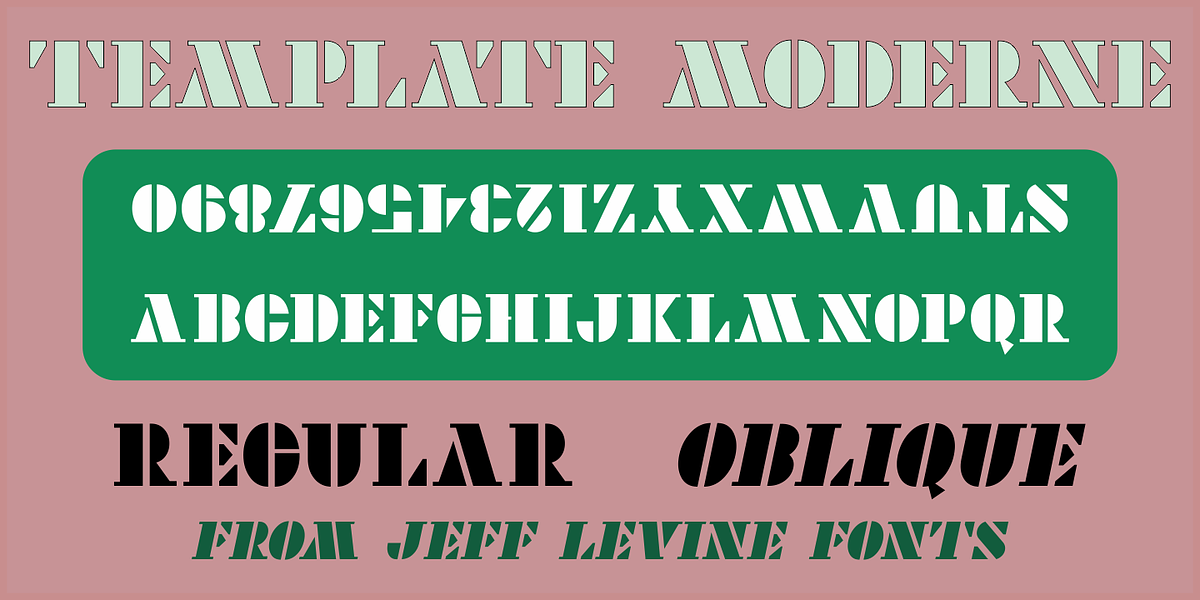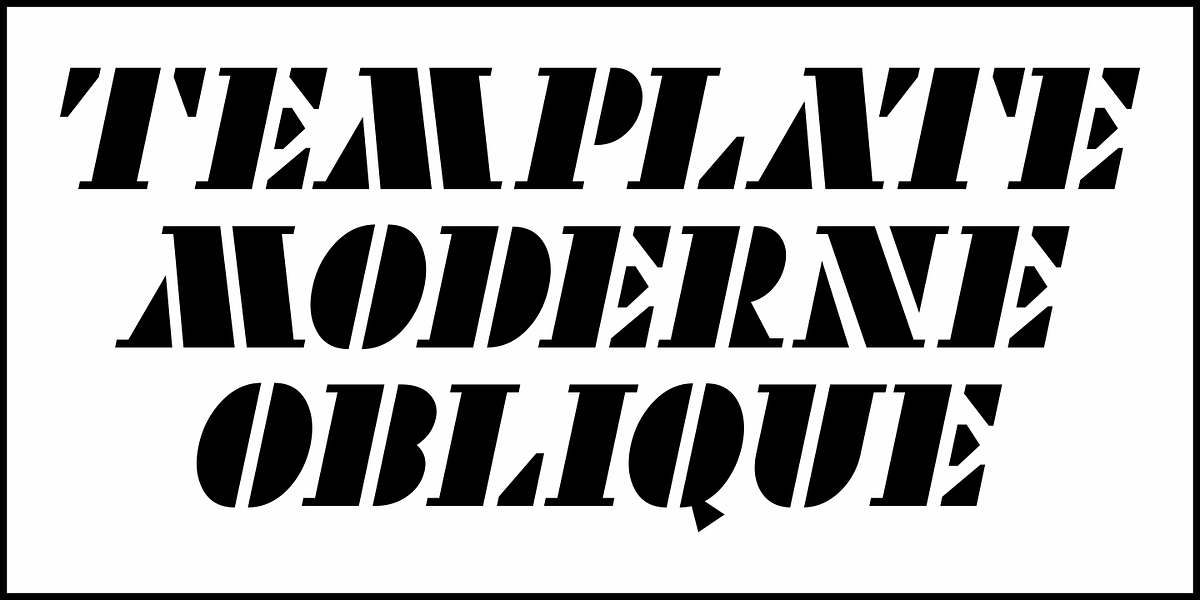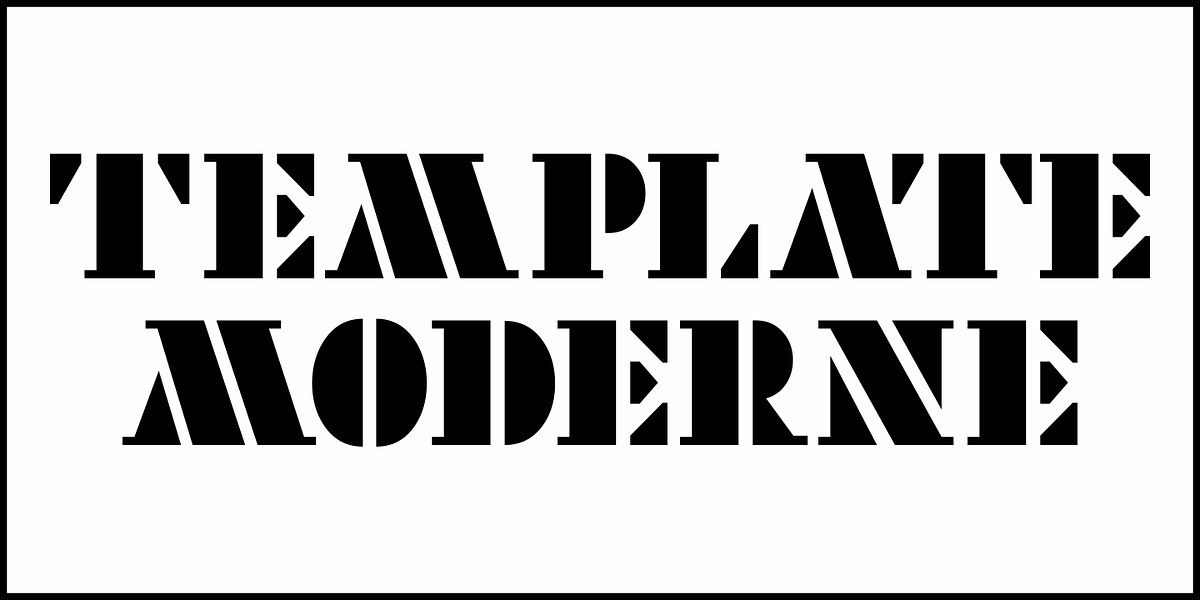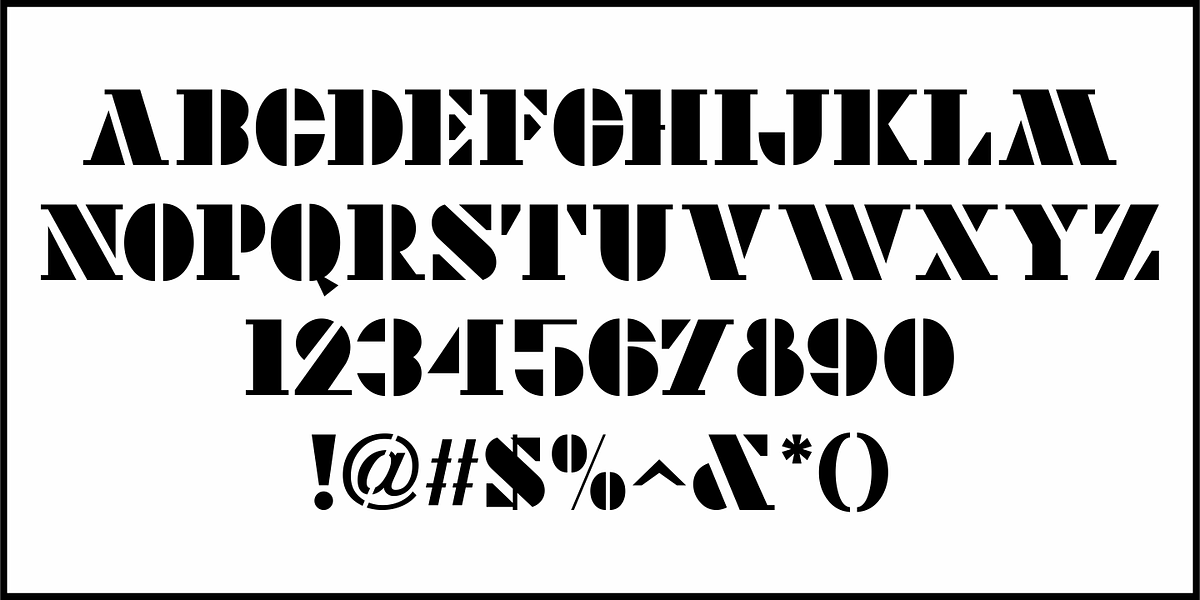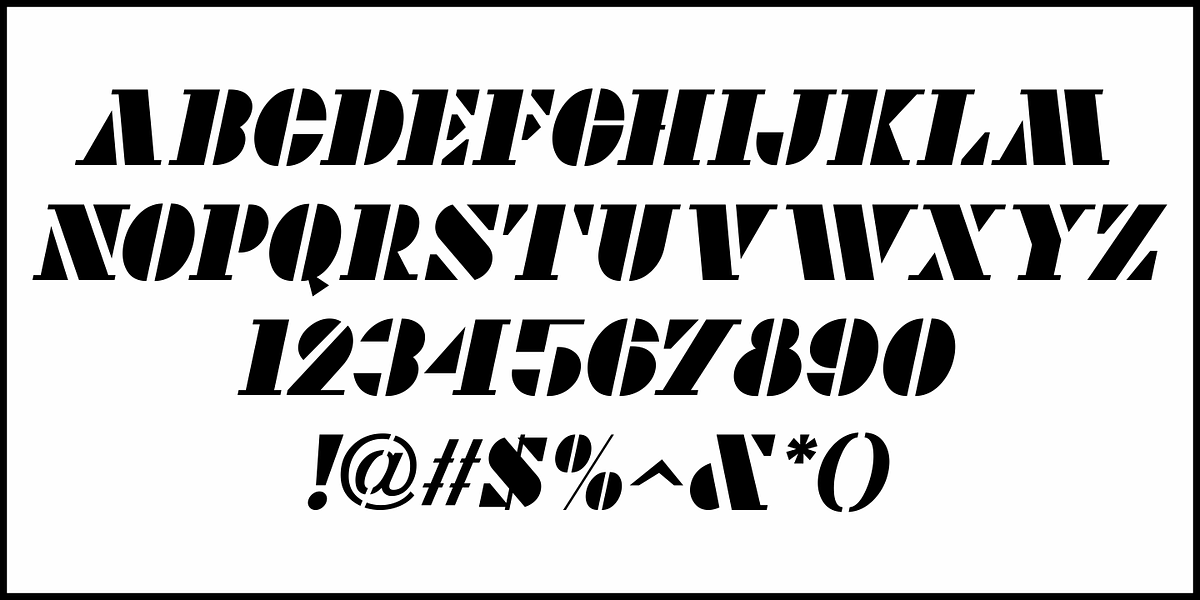
Template Moderne JNL
The A.B. Dick Company was a manufacturer of mimeograph duplicating machines which produced copies by the process of transferring ink through an etched wax stencil onto paper.
Customers had the option of purchasing various size and style lettering guides in order to create eye-catching headlines or announcements on their print projects.
One such guide called ‘Modern Display’ featured a lettering style resembling Futura Black with added serifs. This is now available as Template Moderne JNL, in both regular and oblique versions.